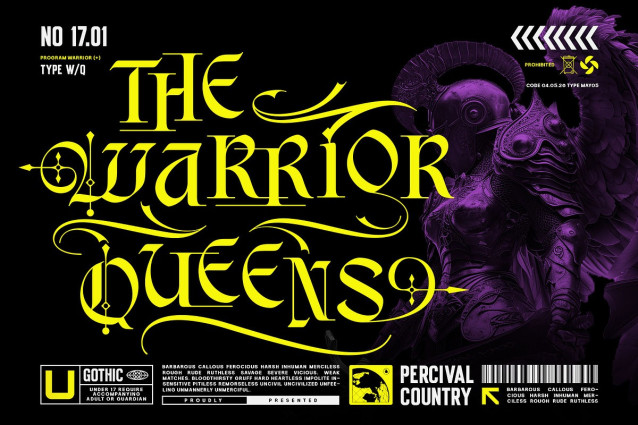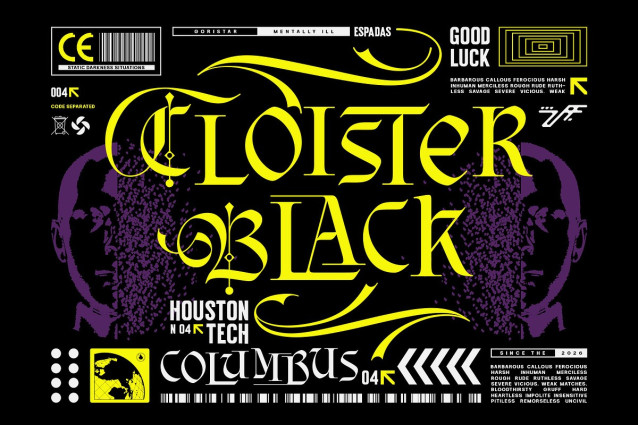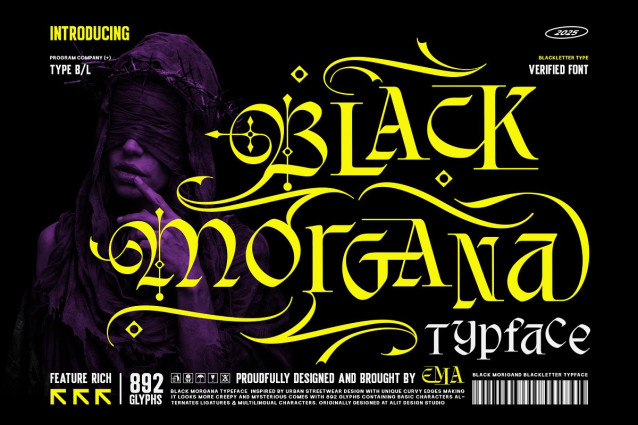
Black Morgana Font
Black Morgana Font – Inspired by the raw energy of urban streetwear and the timeless elegance of gothic blackletter typography, Black Morgana is designed to make a statement. This typeface masterfully blends harsh, sharp angles with unique, sweeping, curvy edges, creating a look that is simultaneously aggressive and deeply elegant.
Whether you are designing for a modern apparel brand, a heavy metal album cover, or edgy editorial layouts, Black Morgana delivers a captivating “chaotic beauty” that instantly grabs attention.
But Black Morgana isn’t just about looks—it is an incredibly powerful and versatile design tool. Boasting a massive 892 glyphs, this feature-rich font gives you ultimate control over your typography. With six distinct stylistic sets, you can transform simple words into complex, customized logos and wordmarks in seconds.